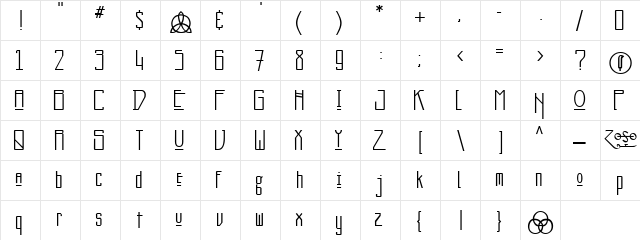
Underiscore Regular
Design Context for Underiscore Typeface
Underiscore is a composed and adaptable typeface that performs quietly and consistently across a wide range of design contexts.